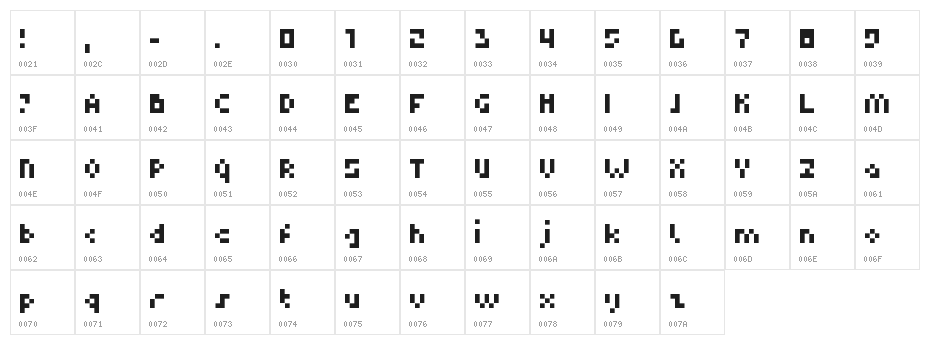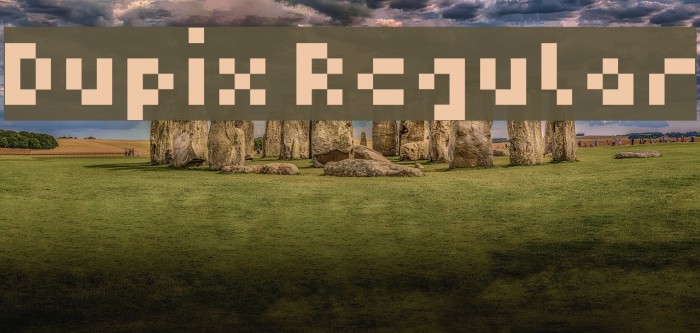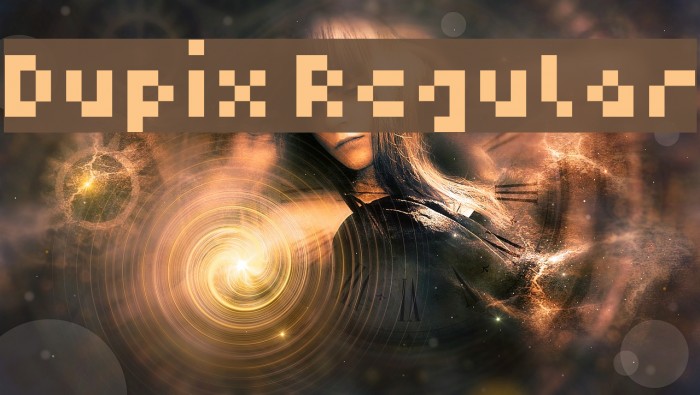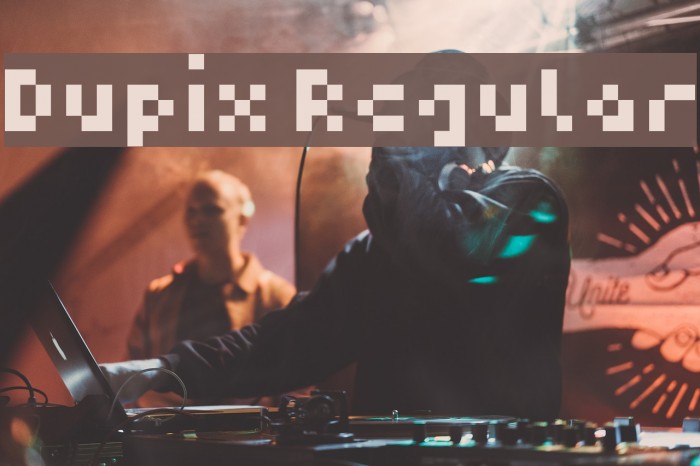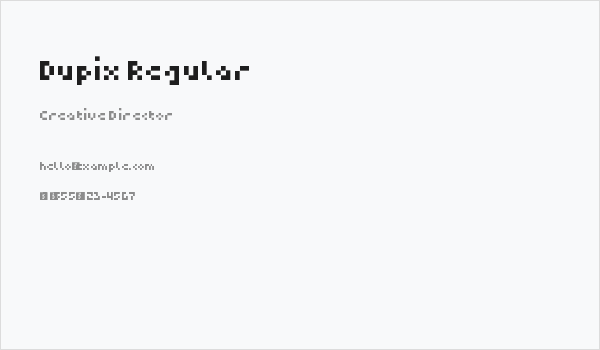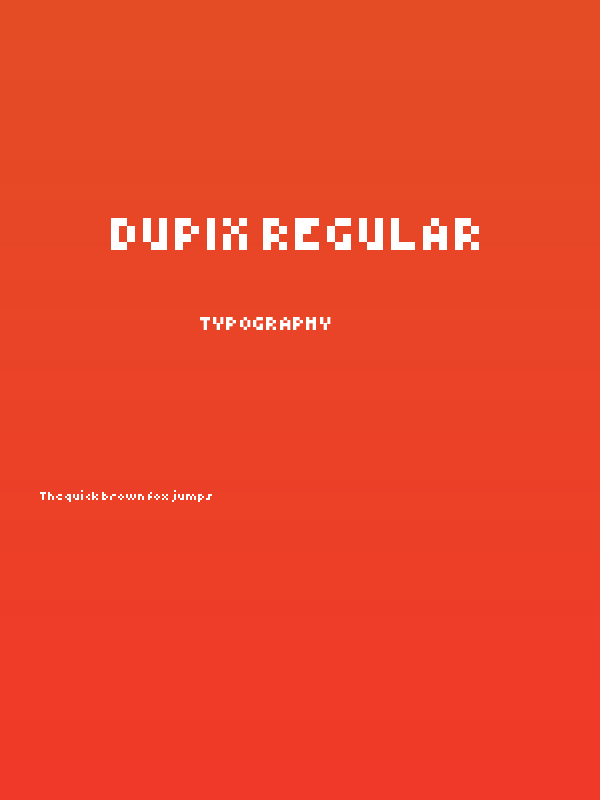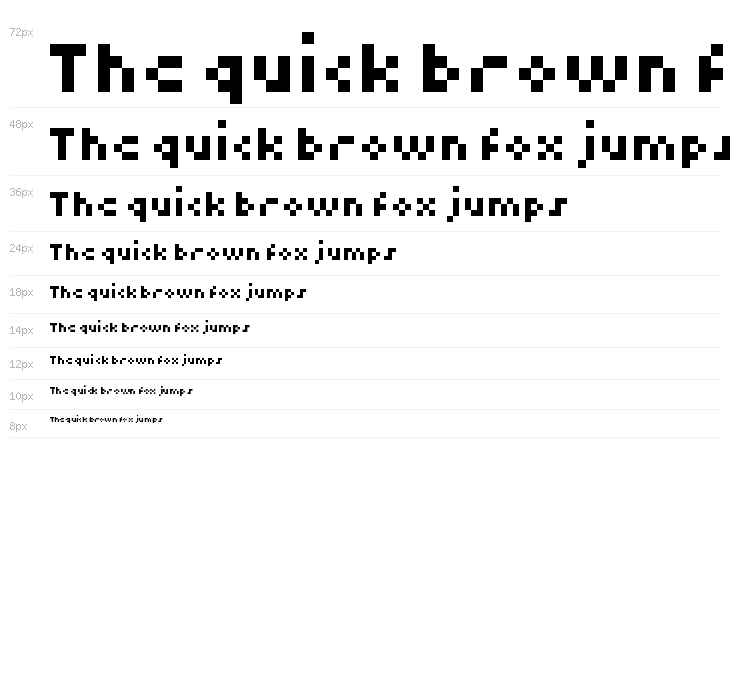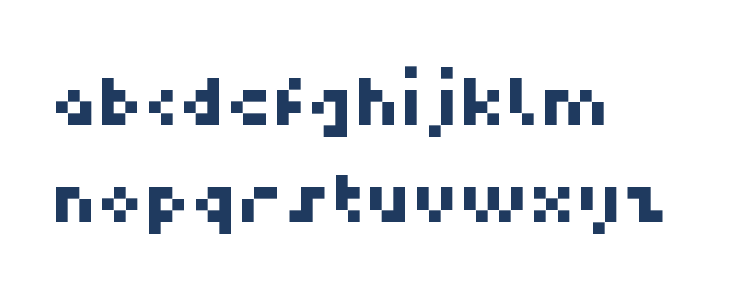
Dupix Regular Font
Dupix Regular Description
This font features a bold and blocky design, reminiscent of pixel art or early digital displays. Each character is constructed with a uniform thickness, giving it a cohesive and structured appearance. The geometric shapes and sharp angles create a modern and tech-inspired aesthetic. The uppercase and lowercase letters maintain a consistent style, with a clear distinction between the two. Numbers and special characters follow the same design principles, ensuring a harmonious look across all glyphs. This font is ideal for projects that require a digital or retro feel, such as video game graphics, tech branding, or digital art.
| Use Case | Logos, Headlines, Digital Art |
| Proposed Projects | Ideal for video game graphics, tech branding, digital art, and retro-themed designs. |